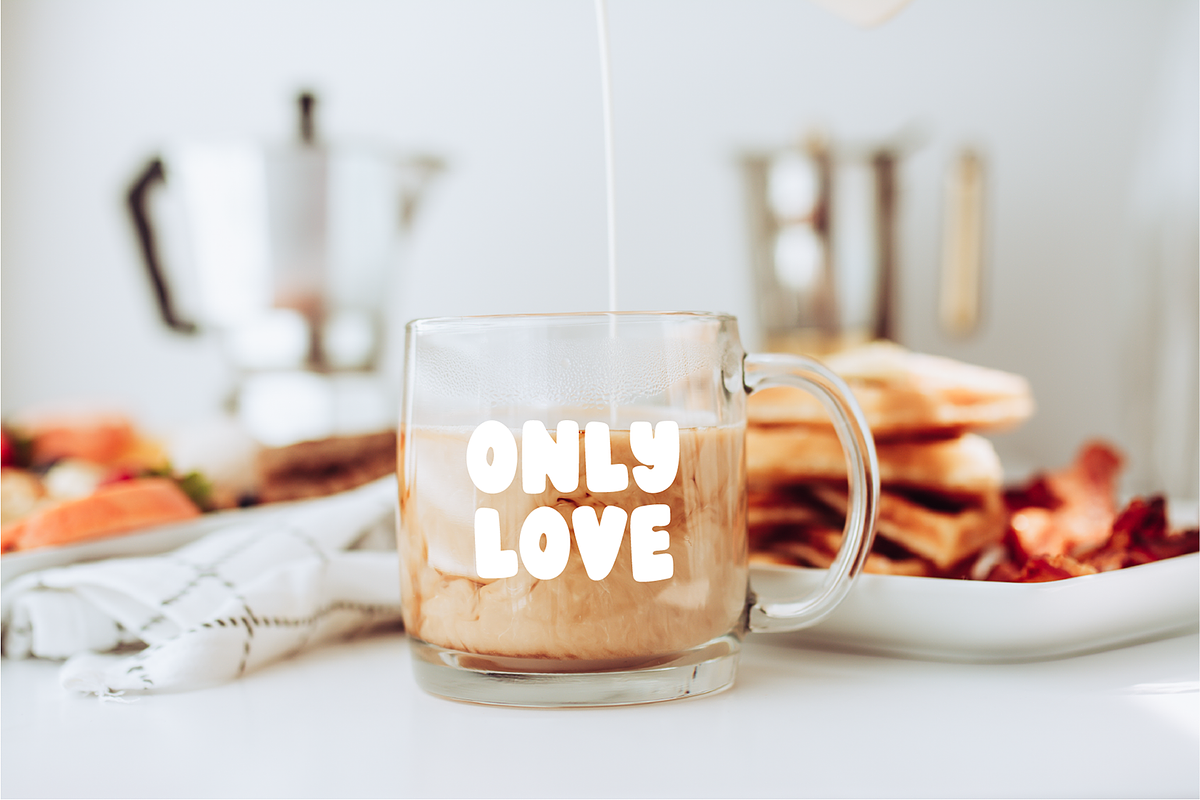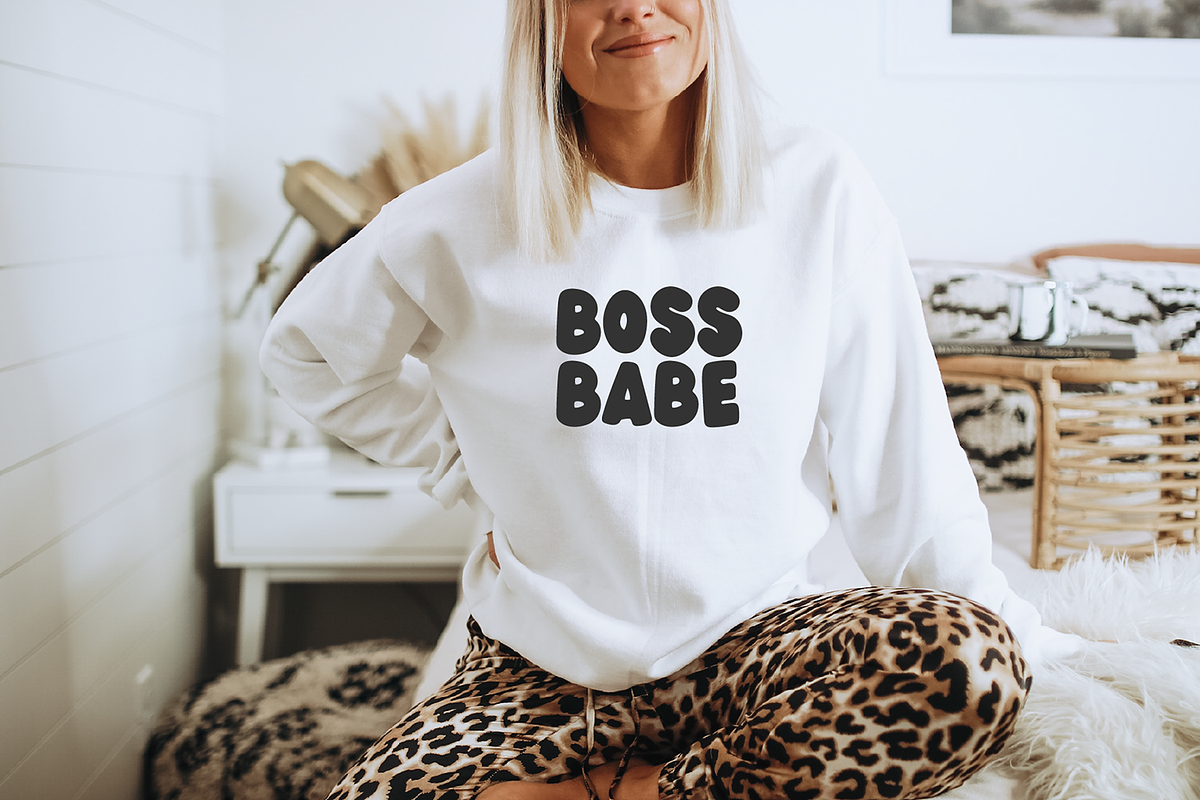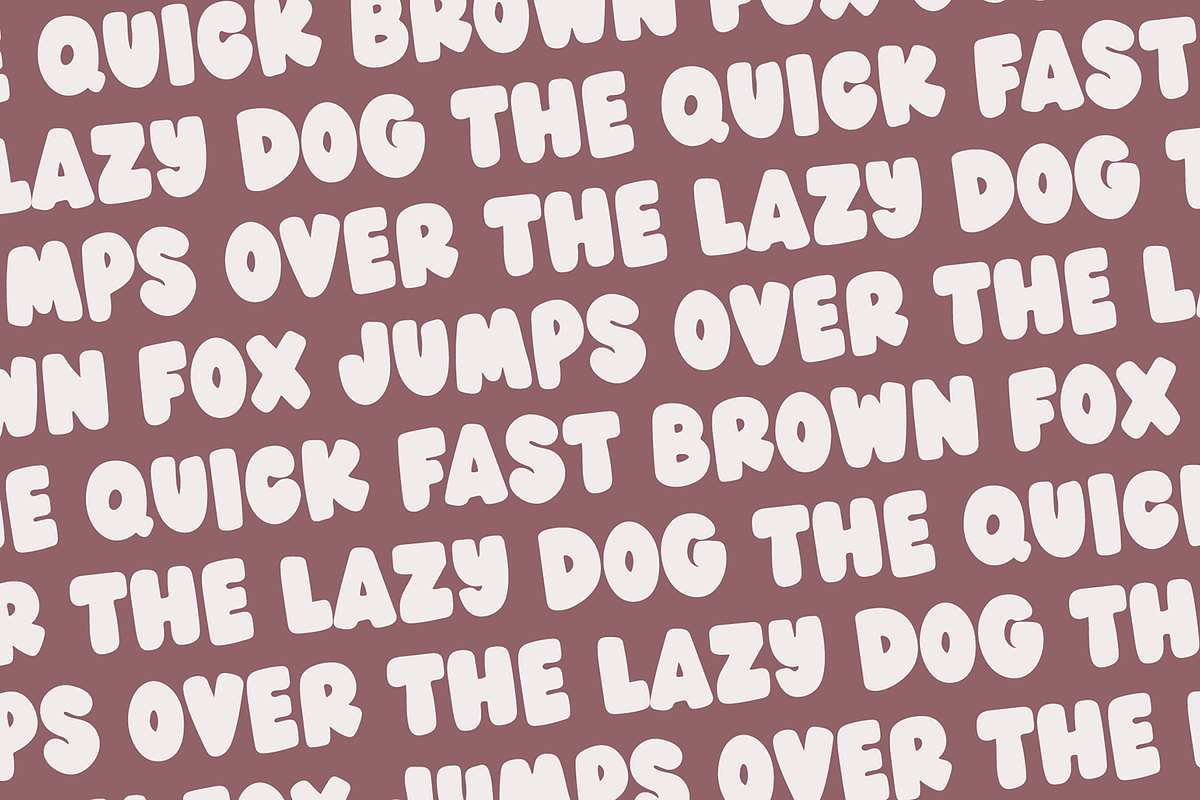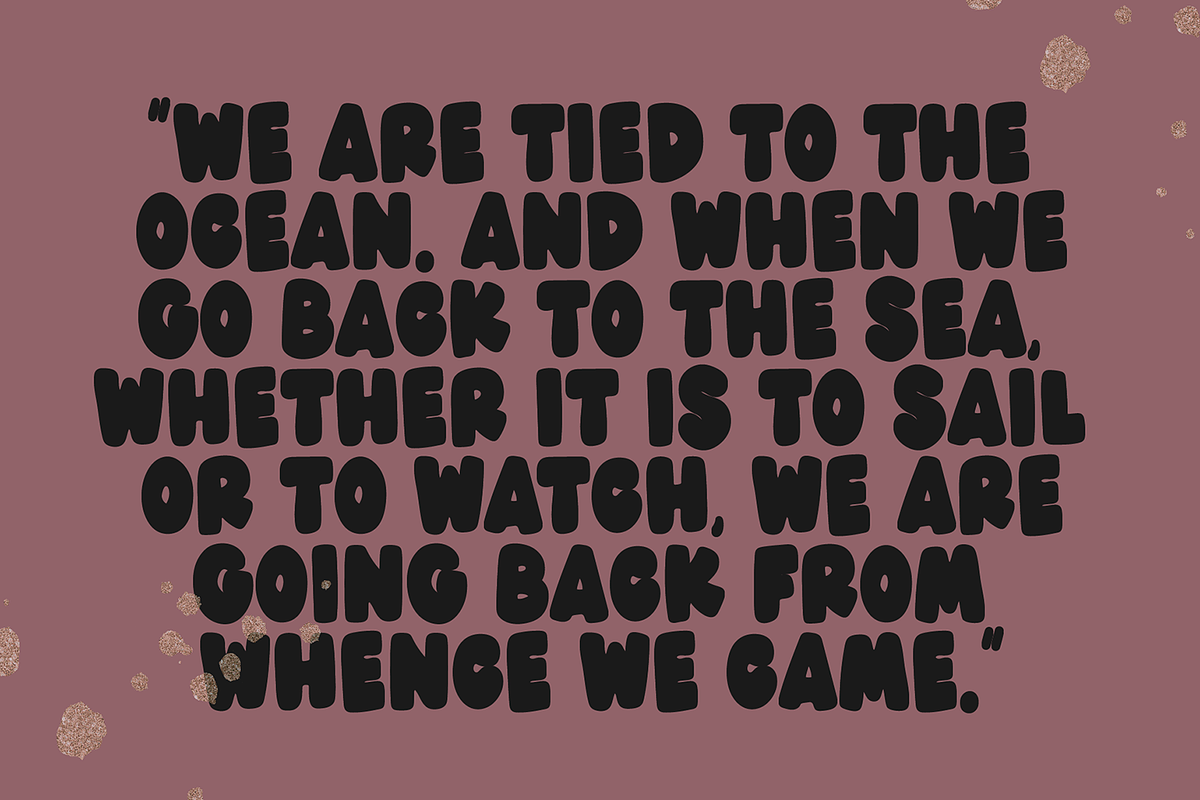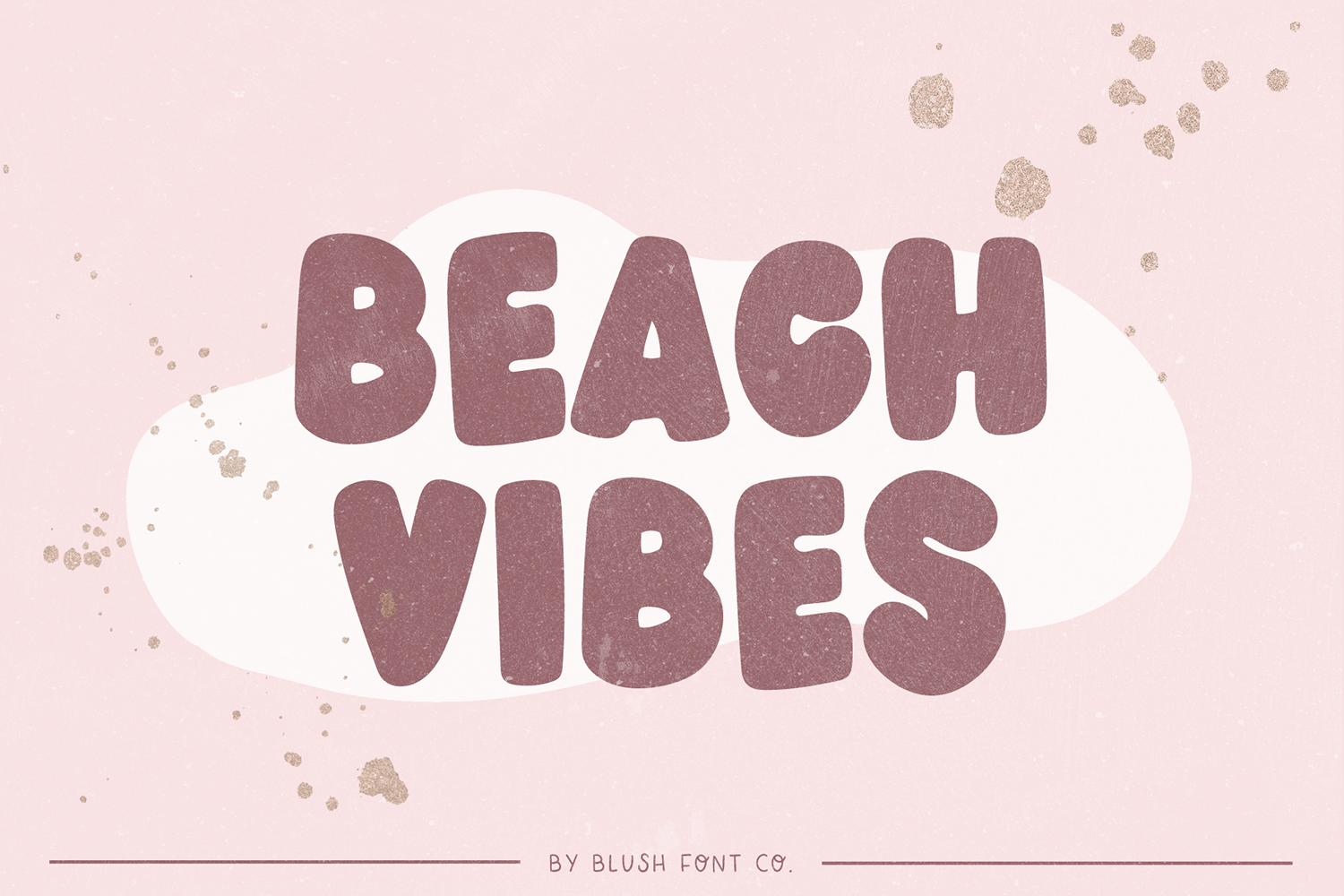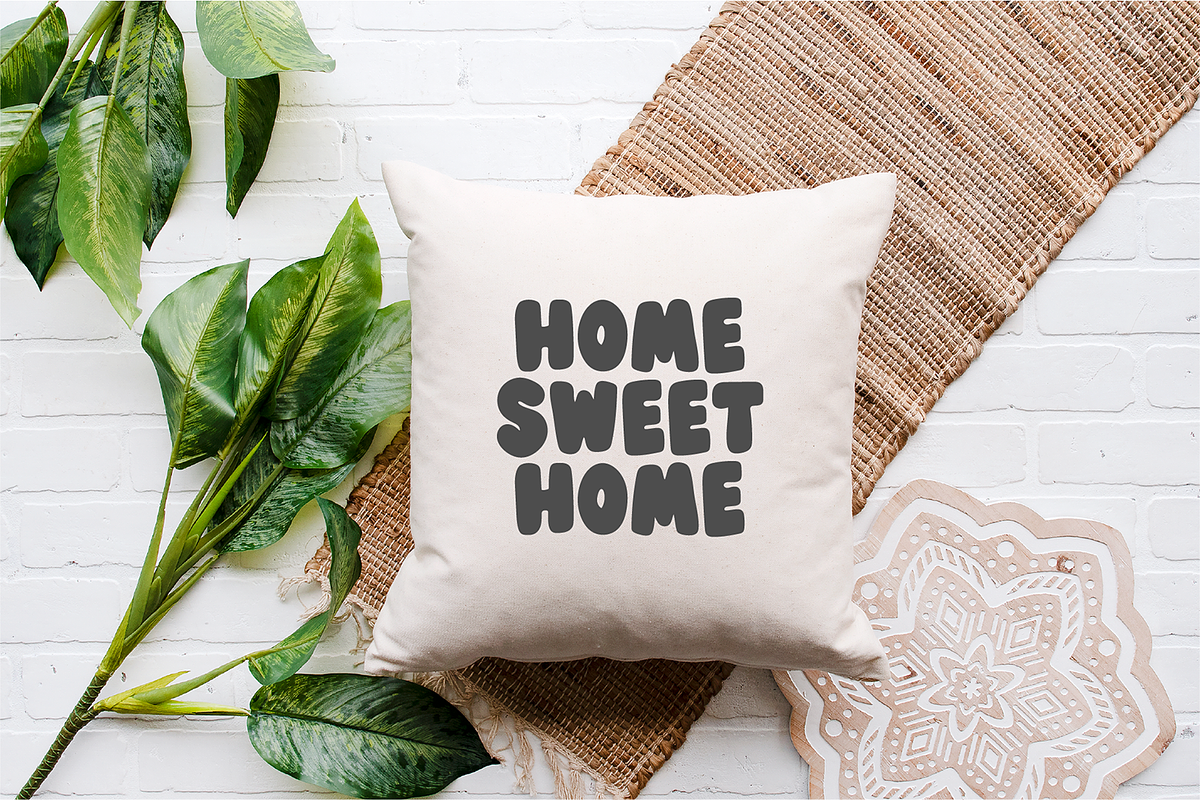
BEACH VIBES Soft Display Font
"Beach Vibes" a soft display font
Beach Vibes is a casual bubble font that is perfect for social media or crafty projects. Use it for branding, procreate, crafts for decor, invitations, and more! This font includes all caps glyphs, numbers, basic punctuation marks, and intl characters.